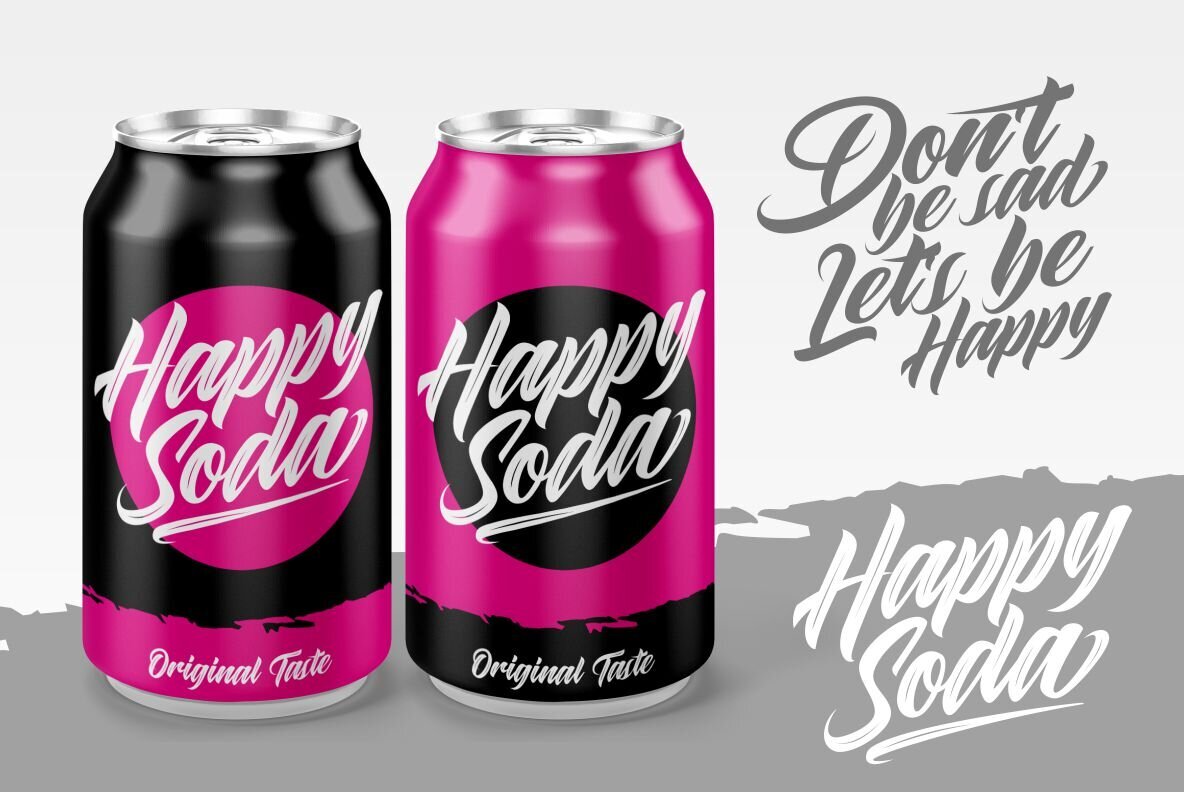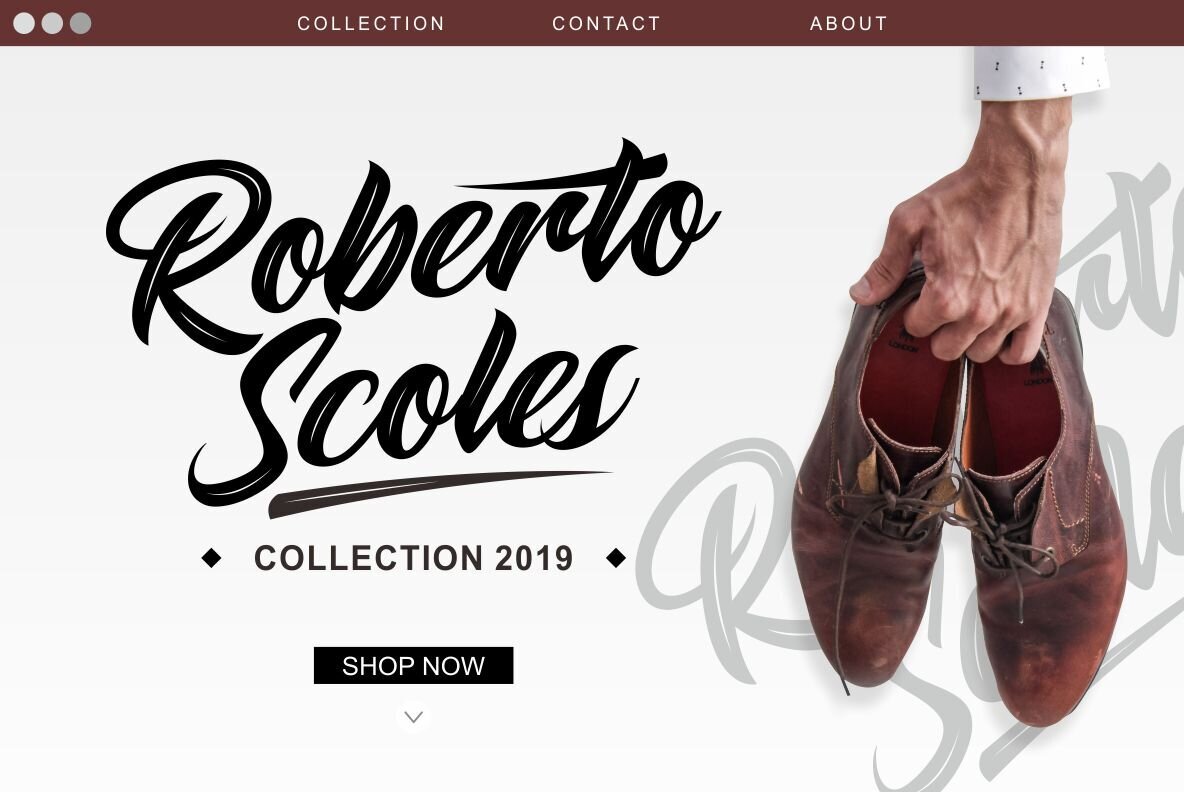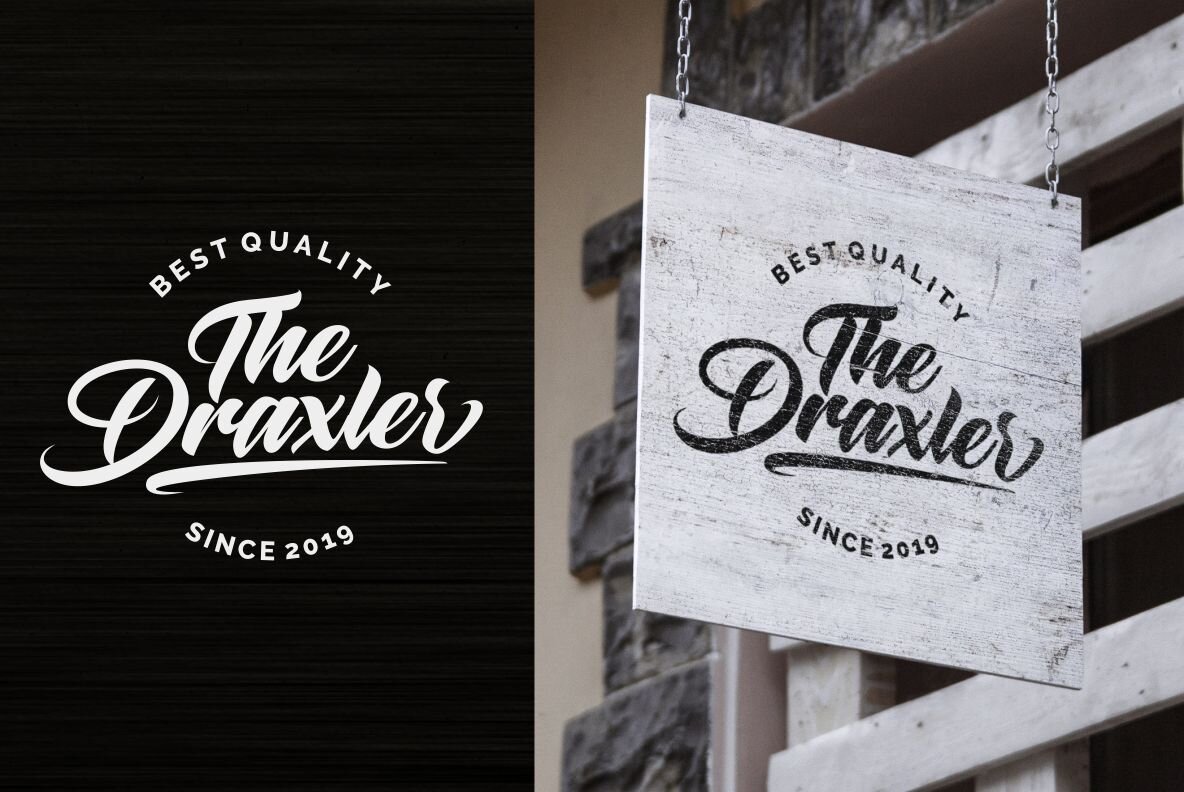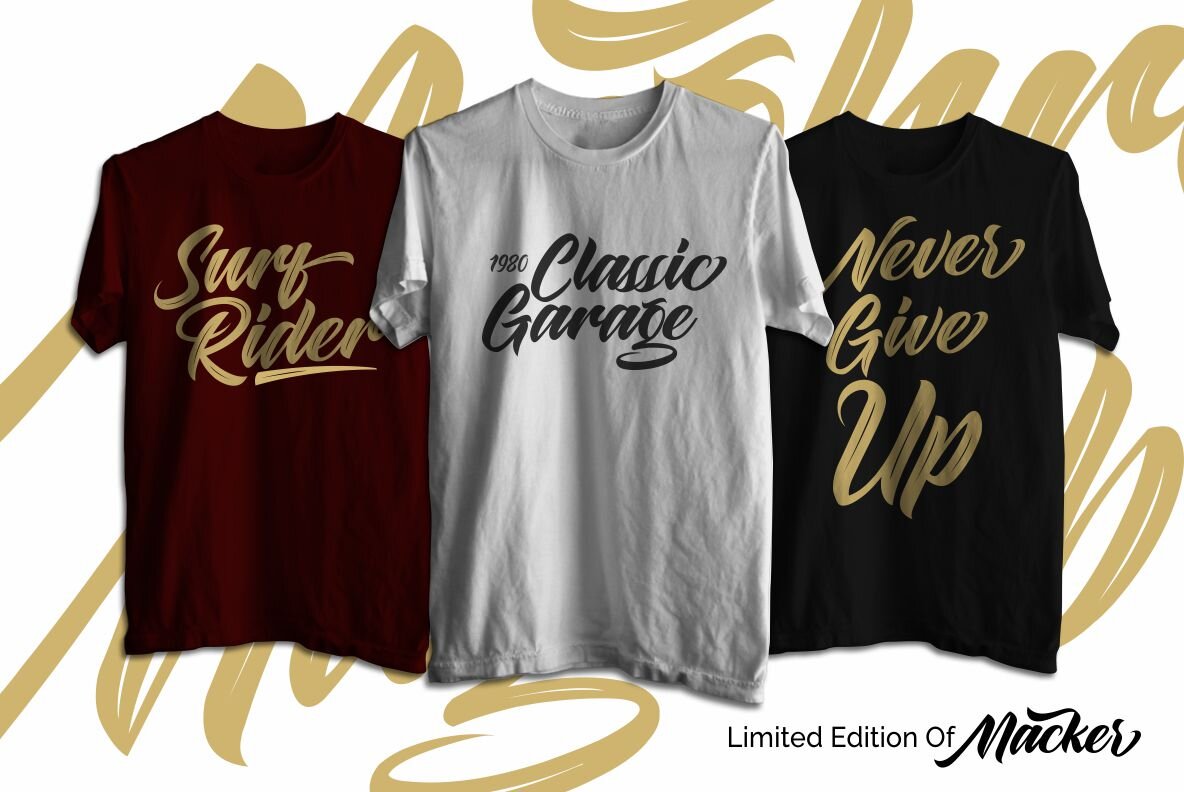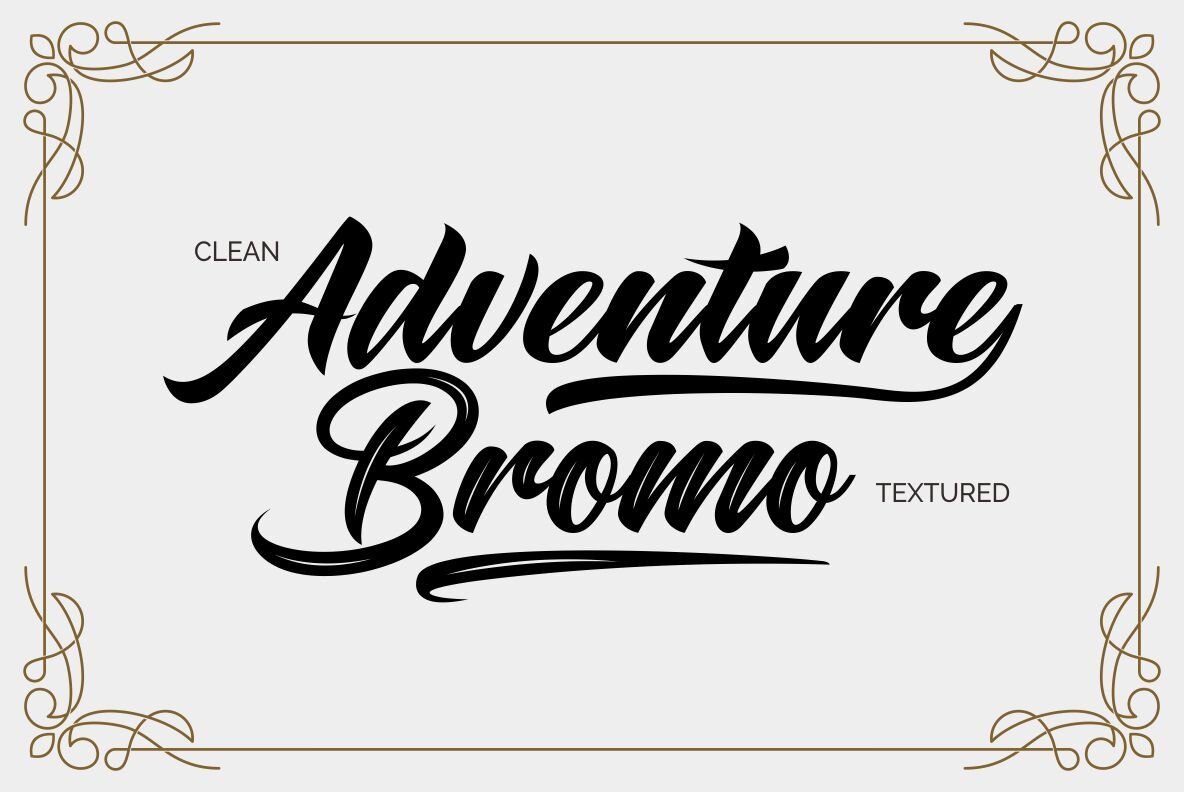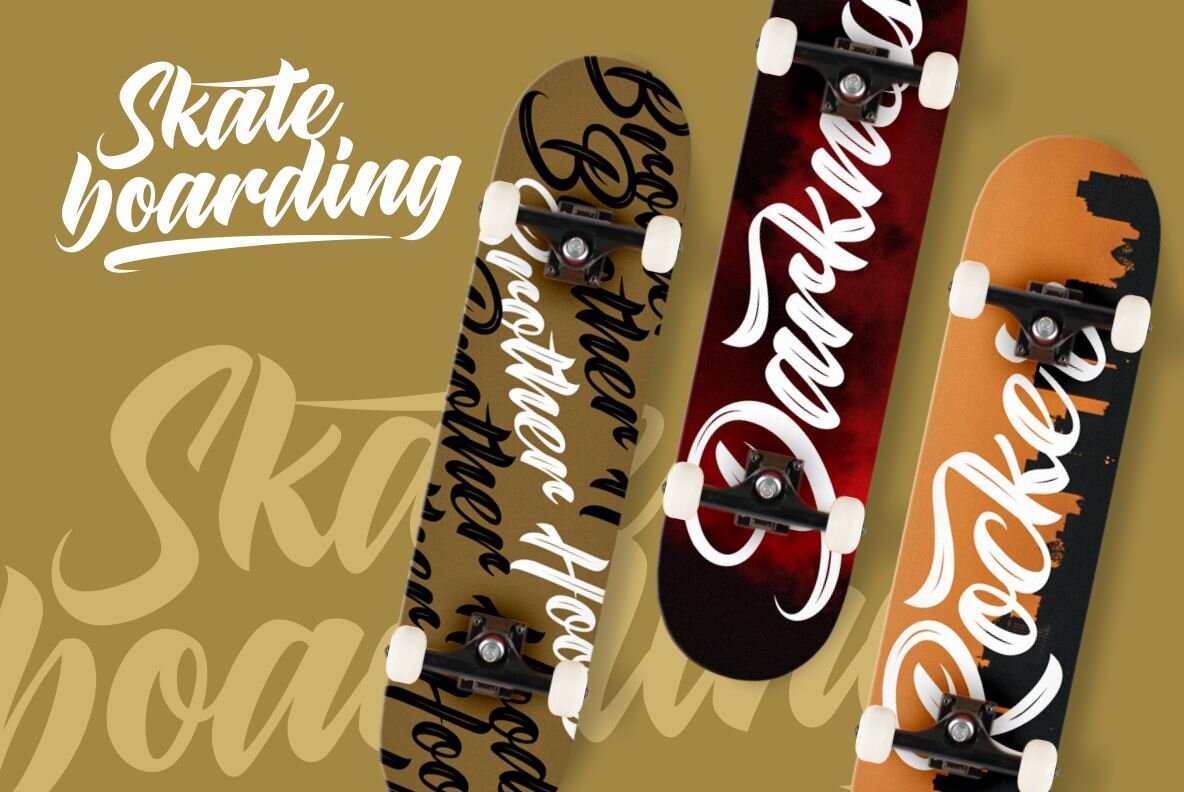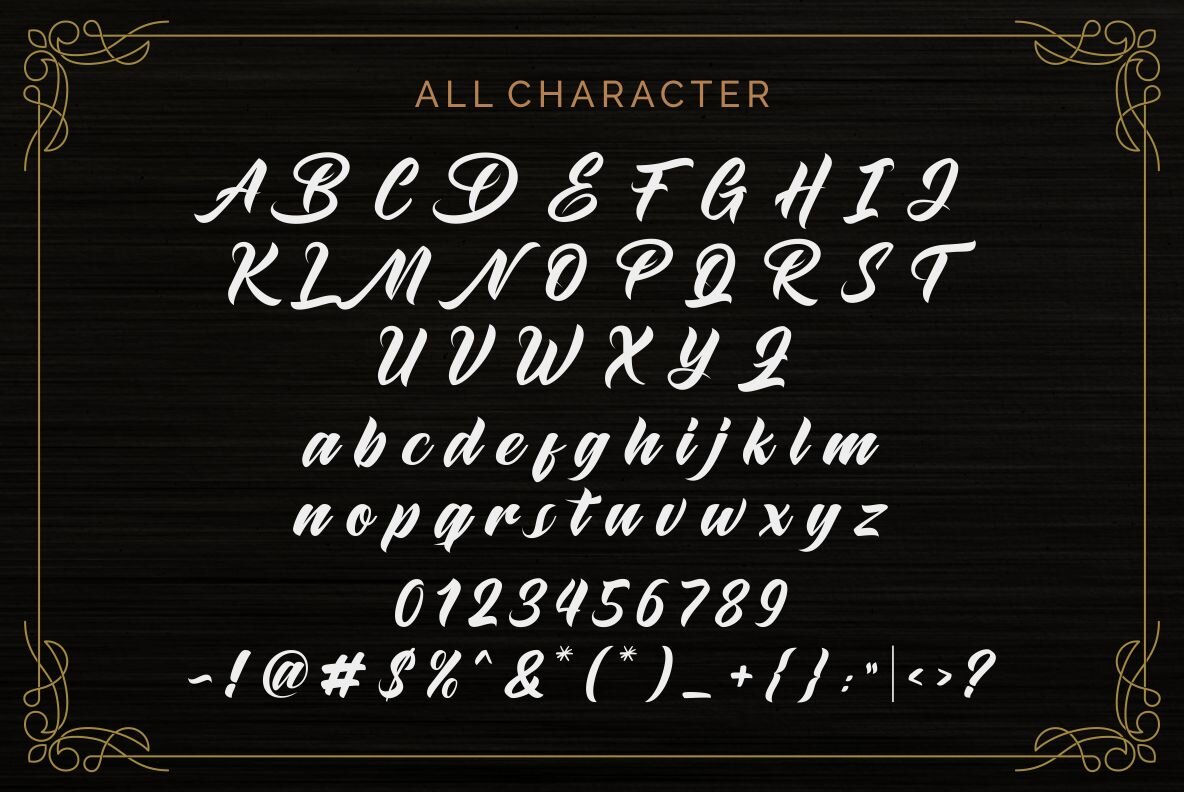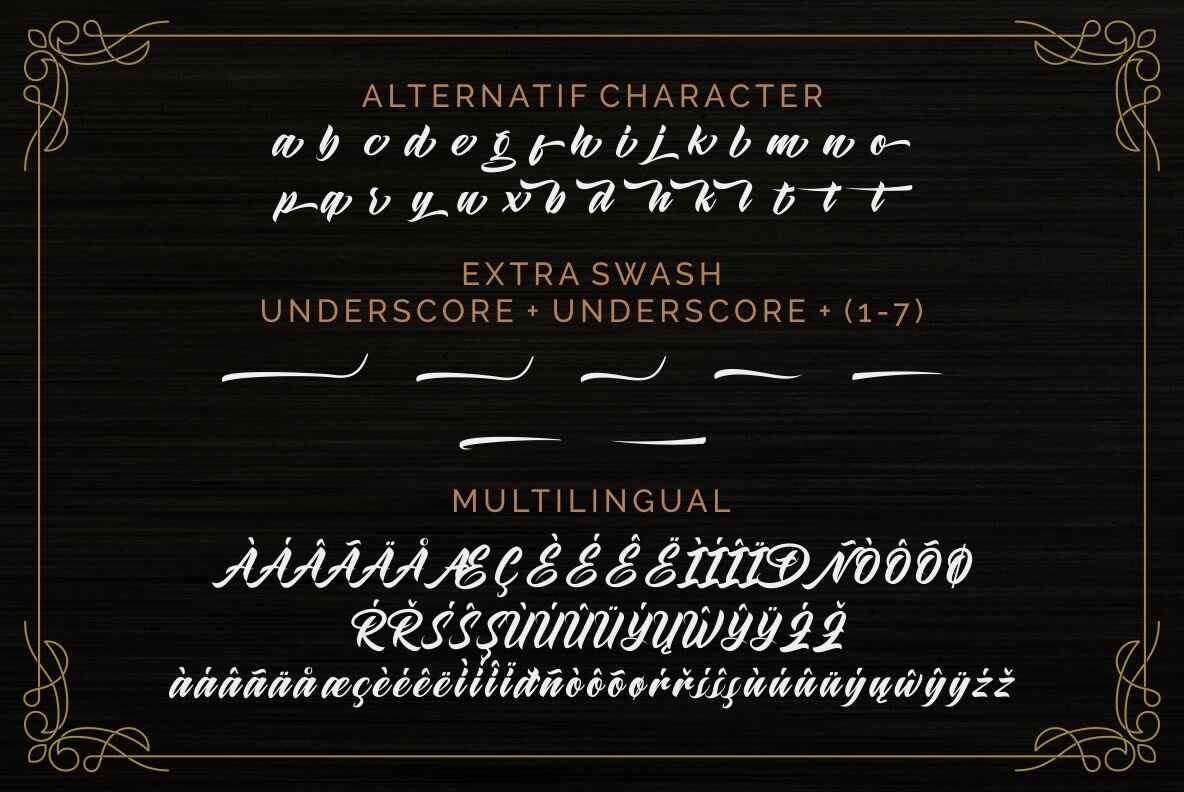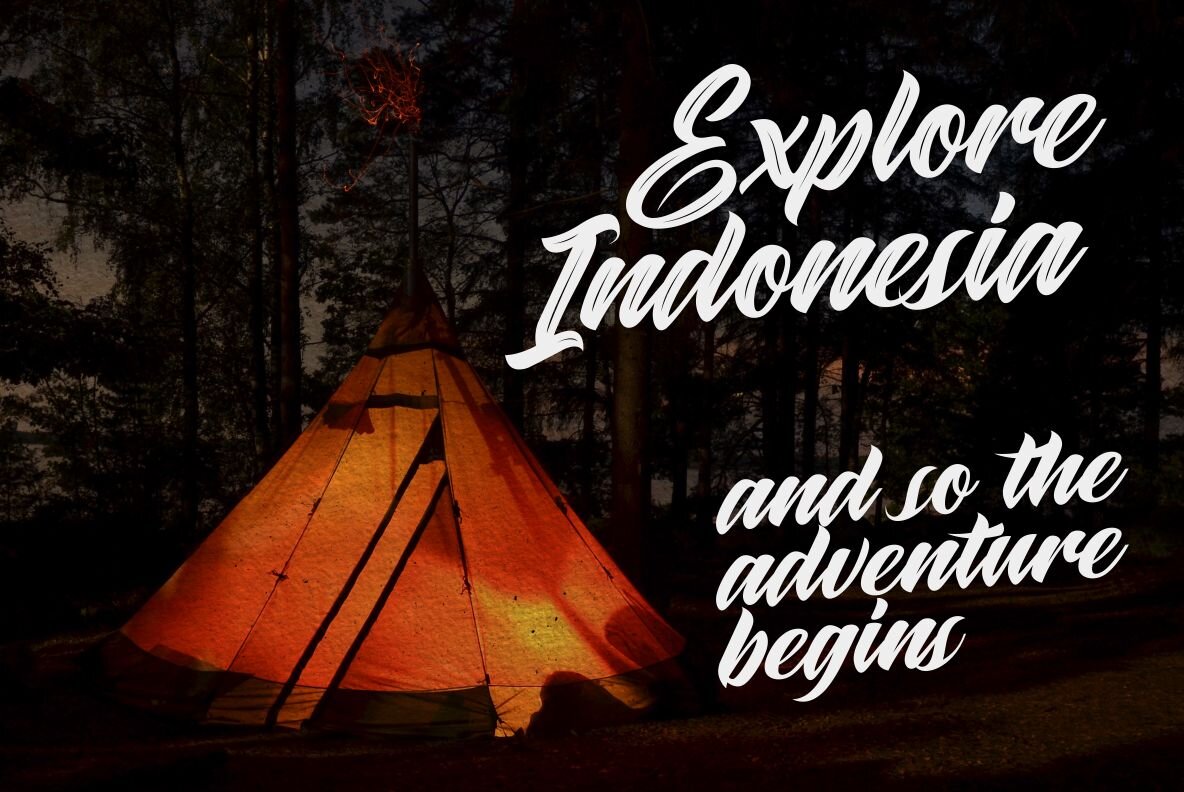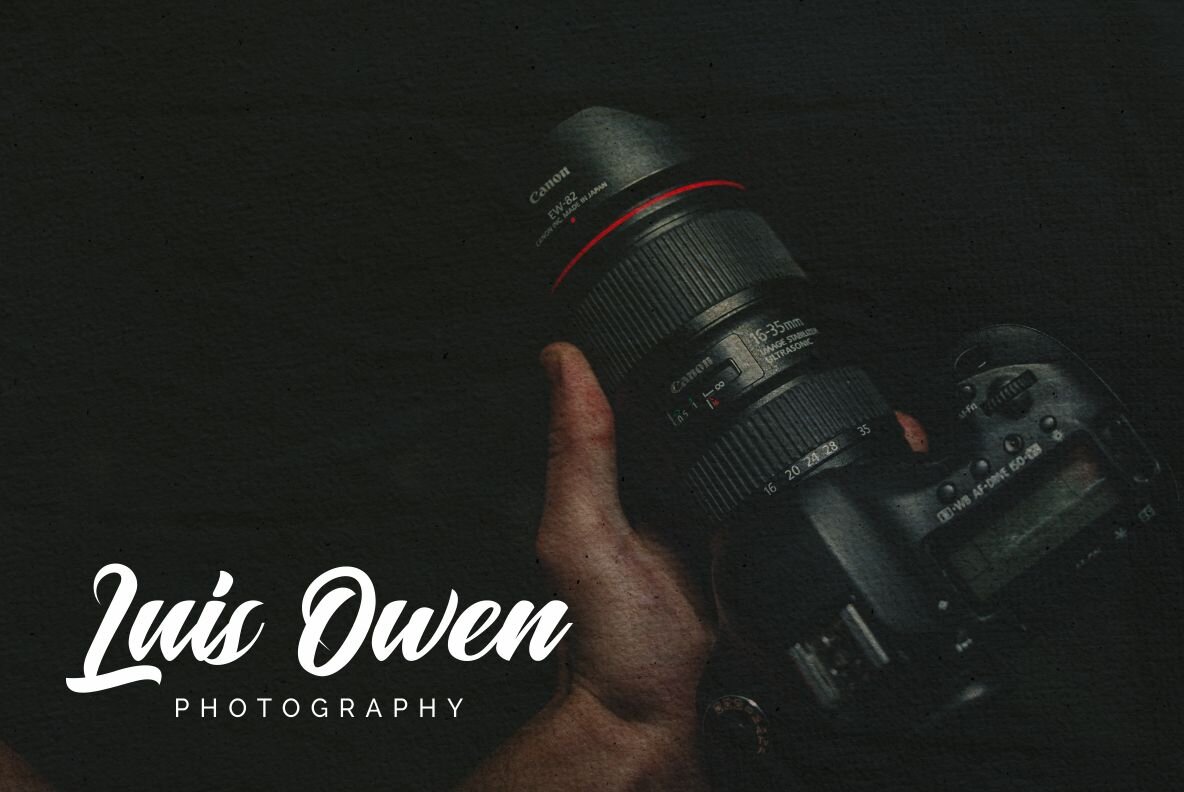
Maghrib Font
Maghrib Regular
Maghrib Textured
For those seeking a typeface that embodies elegance and versatility, Maghrib offers an impeccable blend of clean shapes and textured detail. Crafted with an attention to fine artistry, this font stands out with its additional swash, infusing a unique charm to any project. Whether you're designing a logo, embellishing a poster, or crafting apparel products, Maghrib's calligraphic finesse ensures a polished finish. Its compatibility with a wide array of applications makes it a preferred choice for creative professionals.Maghrib: A Calligraphy Typeface with Distinctive Swash